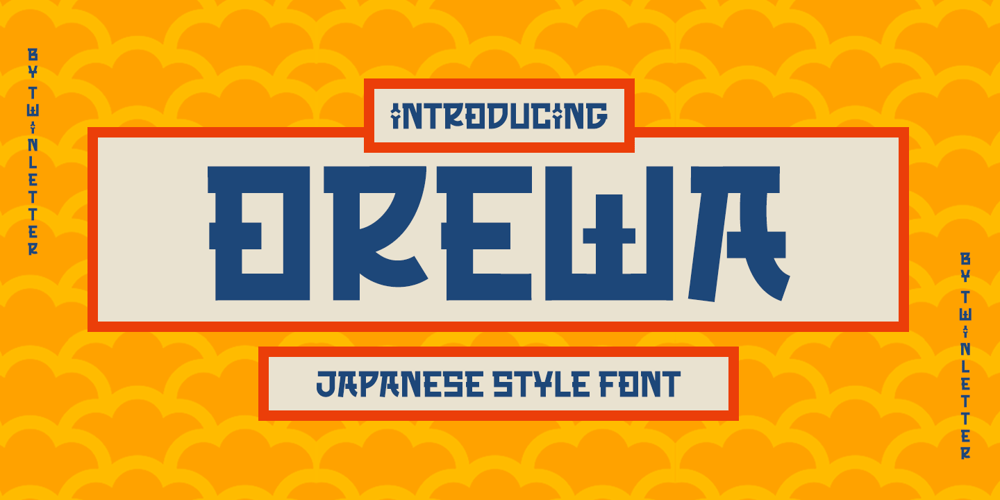
Orewa Japanese Style Font Family was designed by Rozikan and published by Twinletter. Orewa Japanese Style contains 1 styles and family package options. Orewa, our newest font, is now available.In every form of the letter, we design typefaces with great attention. So that this font, which we named Orewa, is realized, which is neat and elegant, easy to read, grasp, and recall at a glance, this font is extremely suited for those of you who have a high level of creativity. Always maintain a fresh and unique appearance.Logotypes, food banners, branding, brochure, posters, movie titles, book titles, quotes, and more may all benefit from this font.Of course, using this font in your various design projects will make them excellent and outstanding; many viewers are drawn to the striking and unusual graphic display.Start utilizing this typeface in your projects to make them stand out.